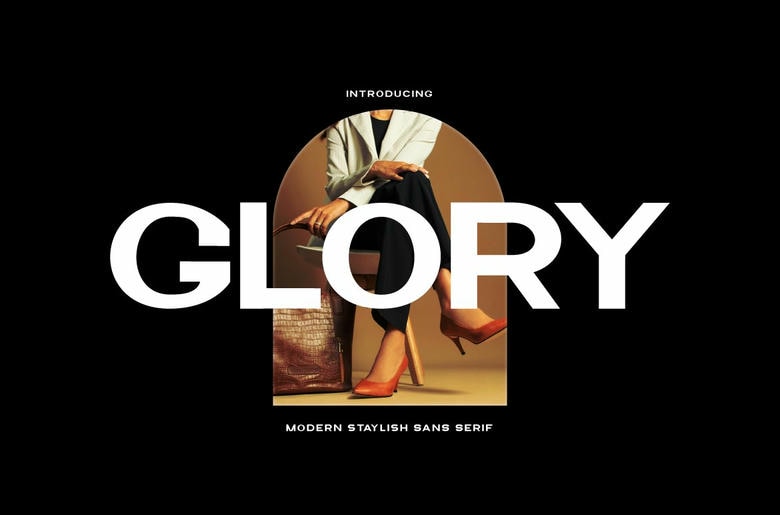
Glory Sans Font
Glory is a very attractive font, or in other words, retro and bold font. This is thick that has the feeling of 70s groove but a little traditional is accorded to it by the serifs. That’s why Glory fits right into those moodboard throws and logos from the 80s and 90s. It come with a unique lower & uppercase plus numbers, punctuations & multilingual letters.
Glory Sans Serif Font